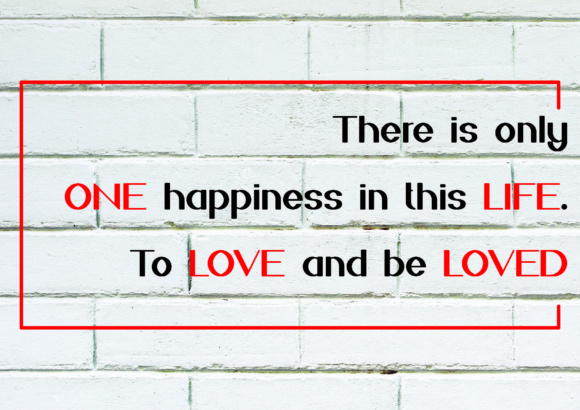
Introduction to Londo Font
Londo is a modern display font, specifically designed for branding projects; this simple font is elegant and clean, and looks exemplary as a headline to your creative work.
Key Features of Londo Font
Why Choose Londo Font?
Londo Font offers exceptional quality and versatility, making it a valuable addition to your design toolkit. Whether you’re creating for personal projects or commercial use, Londo Font delivers professional results.